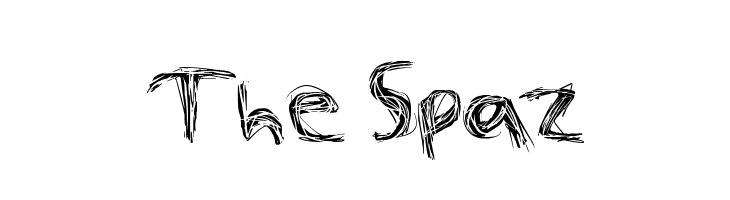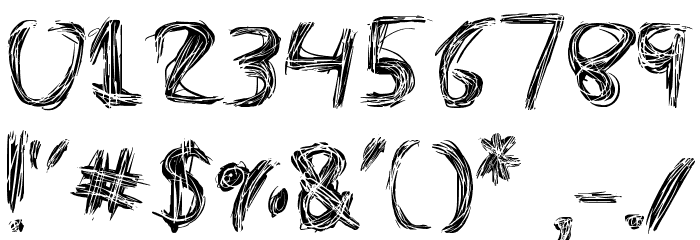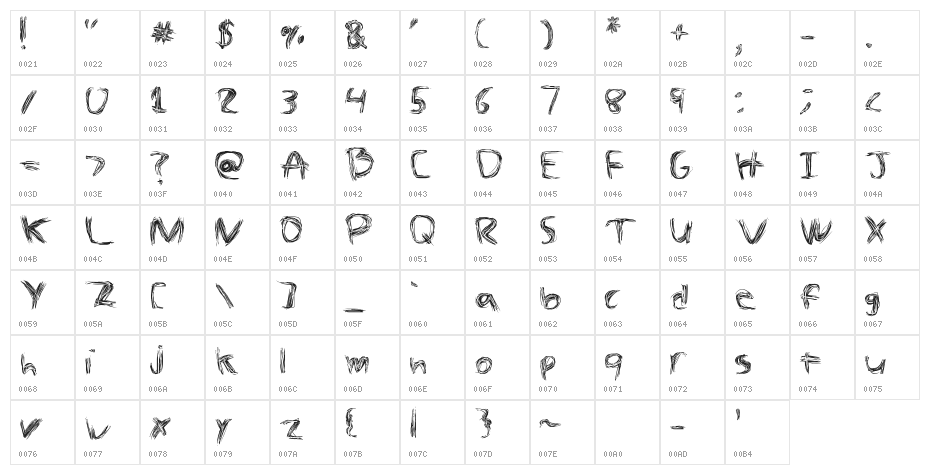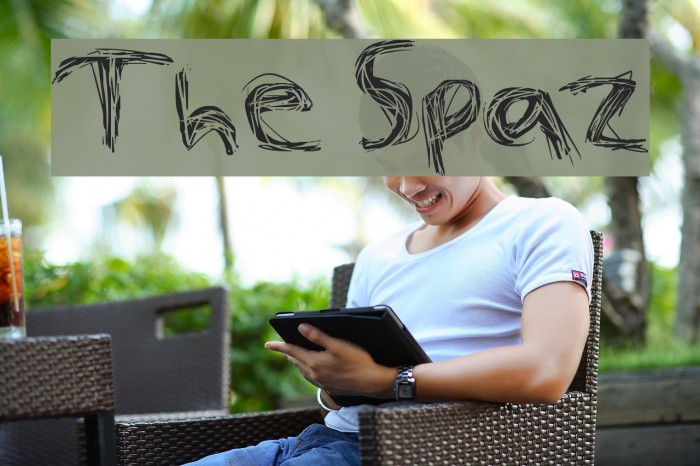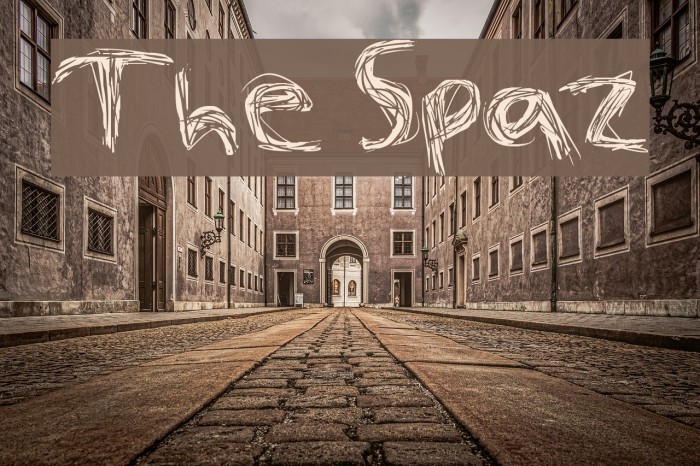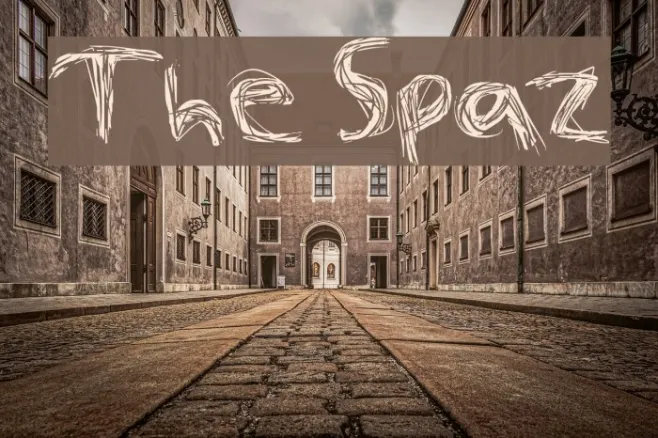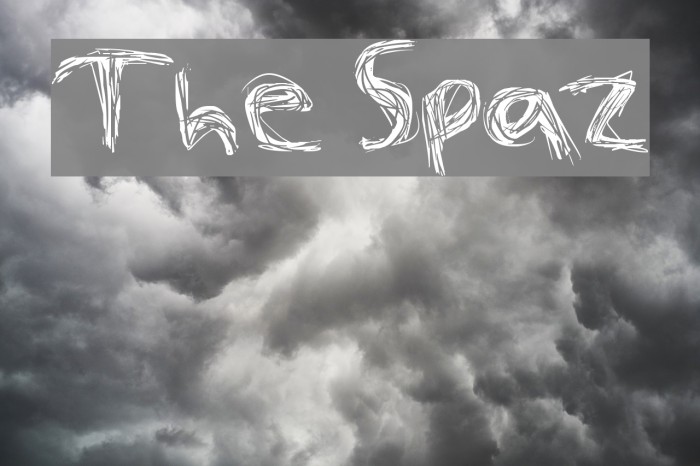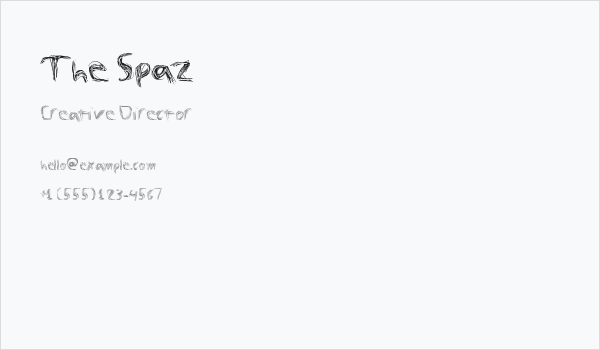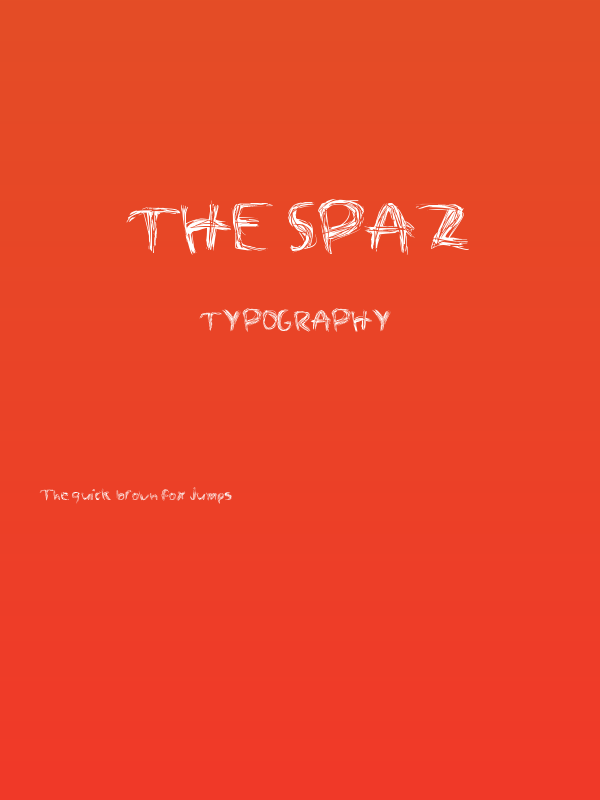
The Spaz Font
The Spaz Description
This font features a highly dynamic and energetic style, characterized by its rough, sketch-like appearance. Each character is crafted with irregular strokes that give it a hand-drawn, spontaneous look. The letters have a playful and chaotic feel, with varying line thicknesses that create a sense of movement and vibrancy. This font is perfect for projects that require a bold, artistic touch, as it stands out with its unique and unconventional design. The characters are well-defined yet maintain an organic, freeform quality that makes them visually striking.
| Proposed Projects | Ideal for creative projects such as posters, album covers, and artistic branding. |